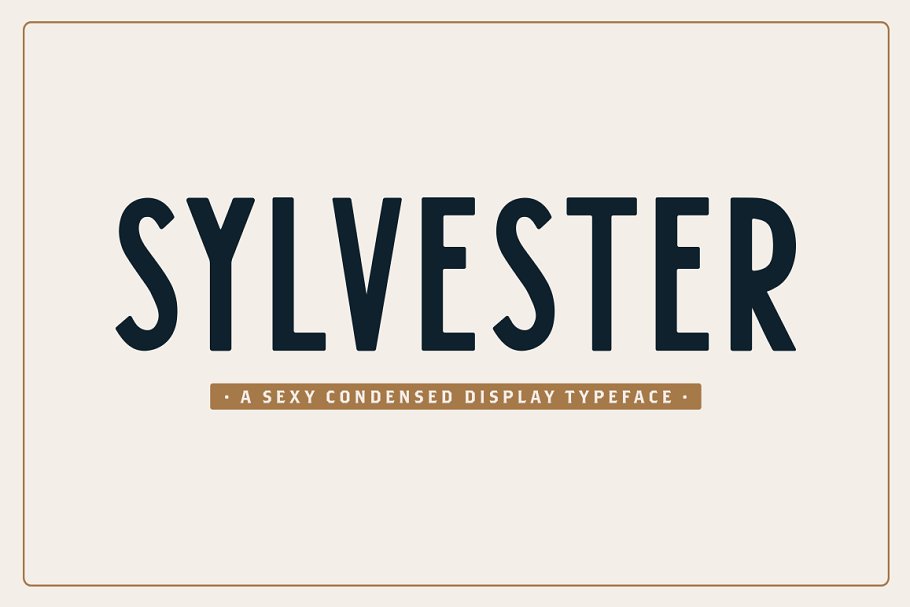
Introducing Sylvester Typeface, the perfect blend of mid-century modern aesthetics and vintage typography. Created by the talented Max Ayalla, this sans serif font is a true gem that will elevate any design project to new heights.
Inspired by vintage signs, cigar boxes, and classic lettering, Sylvester Typeface exudes a timeless charm that captures the essence of yesteryears. Its unique design pays homage to the past while incorporating a contemporary twist, making it ideal for both nostalgic and modern creations.
With its all caps typeface, Sylvester Typeface commands attention and adds a touch of boldness to your designs. Whether you're designing a logo, a poster, or a website, this font family will make sure your message stands out from the crowd.
The Basic Glyph Character Set included in this font allows for versatile use, giving you access to a wide range of characters to enhance your designs. From punctuation marks to special symbols, Sylvester Typeface has got you covered, allowing you to unleash your creativity without limitations.
But what sets Sylvester Typeface apart is its ability to evoke emotions and tell stories. Each letter has been meticulously crafted to bring a sense of nostalgia, authenticity, and character to your designs. It's like taking a journey back in time, where every curve and line tells a tale of craftsmanship and creativity.
Whether you're aiming for a retro look or a modern vintage vibe, Sylvester Typeface can effortlessly adapt to your vision. Its versatility allows it to be the perfect companion for various design projects, ensuring that your message is conveyed with style and impact.